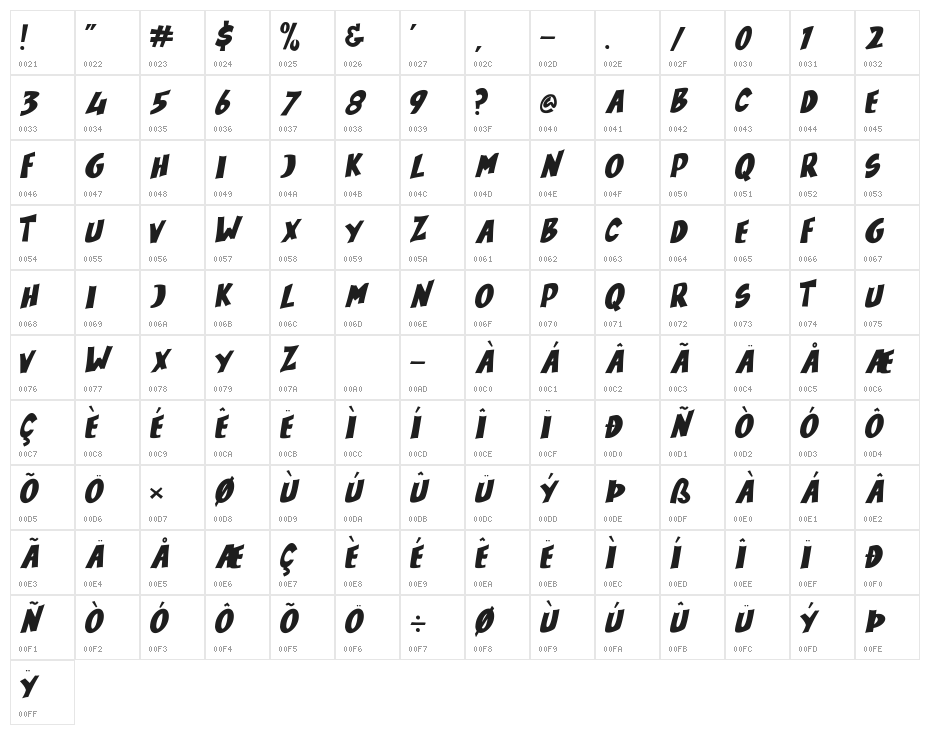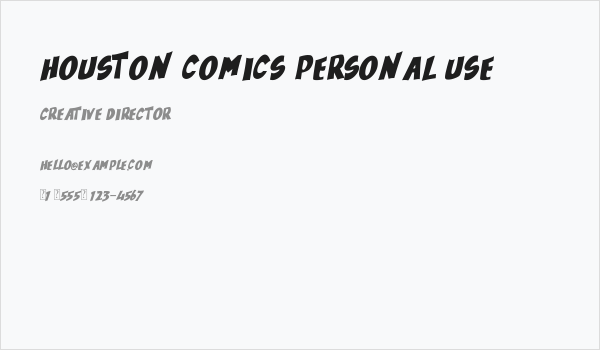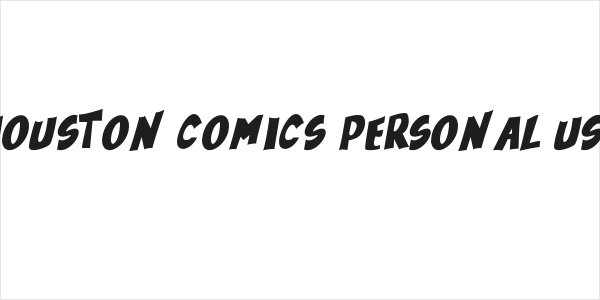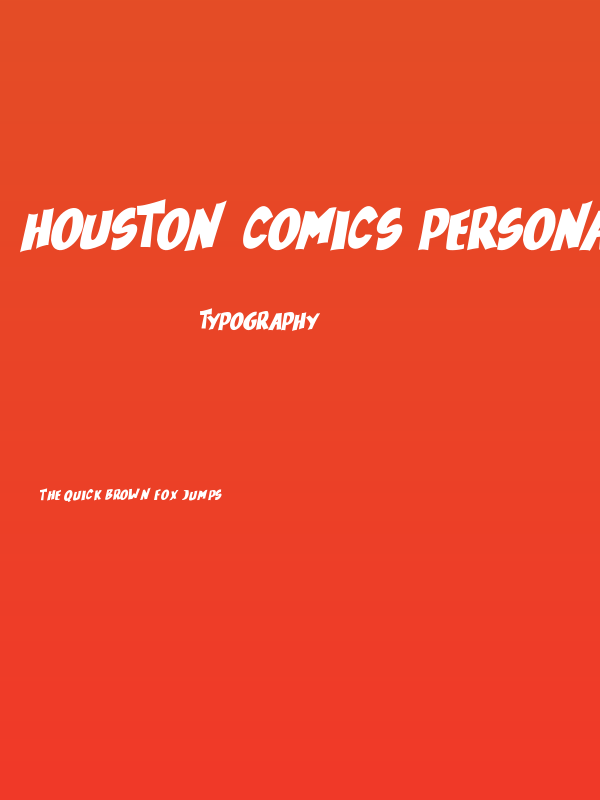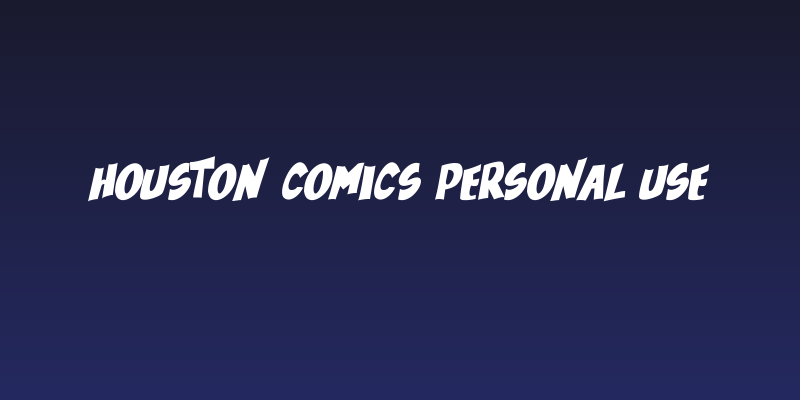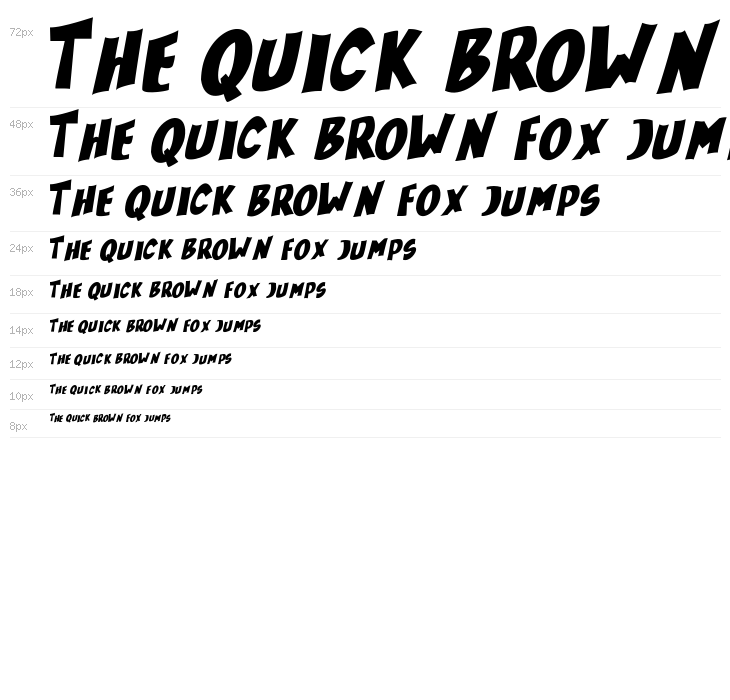
Houston Comics Personal Use Font
Houston Comics Personal Use Description
This font features a bold and dynamic style, characterized by its thick, angular strokes and energetic appearance. The letters have a slightly slanted orientation, adding a sense of movement and excitement. The uppercase and lowercase letters maintain a consistent design, with exaggerated curves and sharp edges that give it a playful yet assertive look. The numbers and special characters follow the same bold and lively aesthetic, making this font suitable for eye-catching designs. The overall impression is one of fun and vibrancy, ideal for projects that require a strong visual impact.
| Proposed Projects | Comic books, posters, children's books, branding for playful products, and event flyers. |